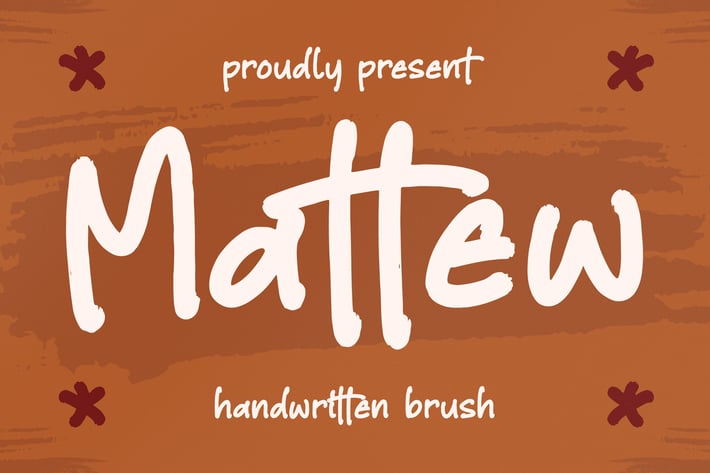
Mattew Hnadwritten Font
Mattew is a bold handwritten brush font designed to bring fun, energy, and personality into your visuals. With chunky strokes and a casual marker feel, this typeface is perfect for playful branding, social media posts, quotes, and eye-catching poster designs.
Handwritten brush style with bold, organic strokes
Playful character shapes for friendly, informal vibes
Good readability for headlines and short text
Works great in both digital and printed projects
Youthful branding & logo marks
Social media posts & story covers
Quotes, posters, and flyers
Kids-themed designs & playful packaging
Greeting cards, banners, and event promos
Bold brush strokes that turn every word into a playful statement.*